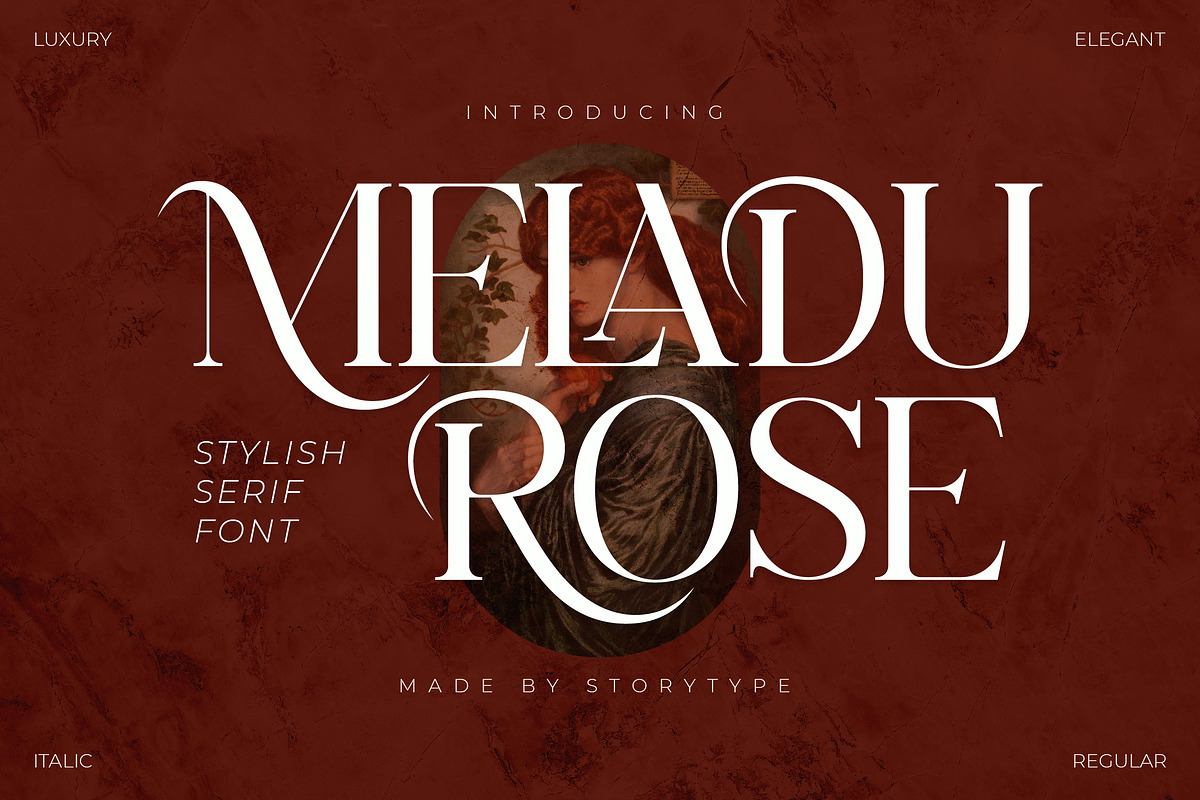
Meladu Rose Stylish Font Free Download
Meladu Rose Stylish Font Free Download is a chic and modern typeface that blends elegance with expressive personality, perfect for elevating your creative designs. Please note, you are required to purchase this font for commercial use. It is available for free download for testing and personal projects only.
With its flowing curves, stylish ligatures, and fashionable flair, Meladu Rose is ideal for branding, wedding invitations, logos, social media graphics, and high-end packaging. Its graceful letterforms make a bold yet feminine statement—perfect for projects that require a delicate touch with a modern edge.